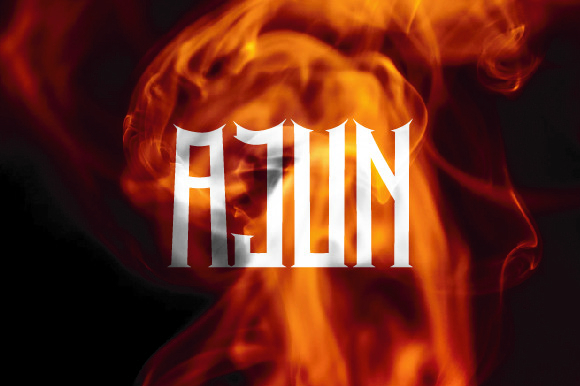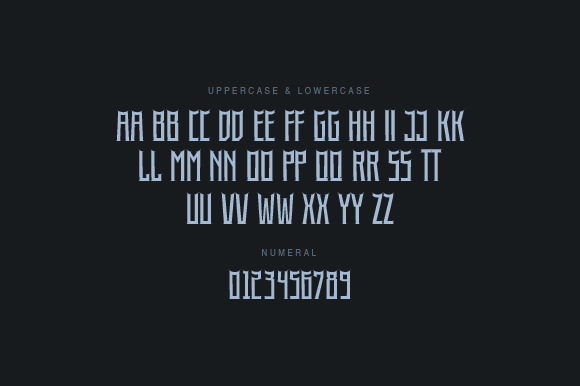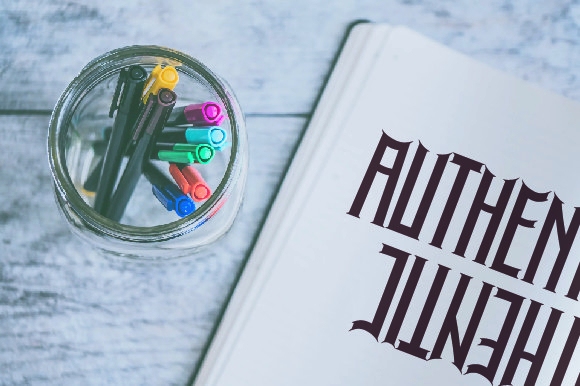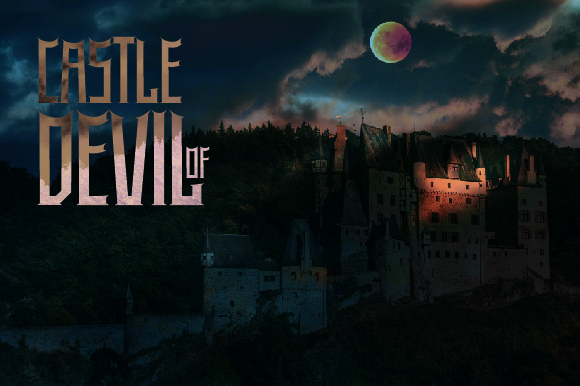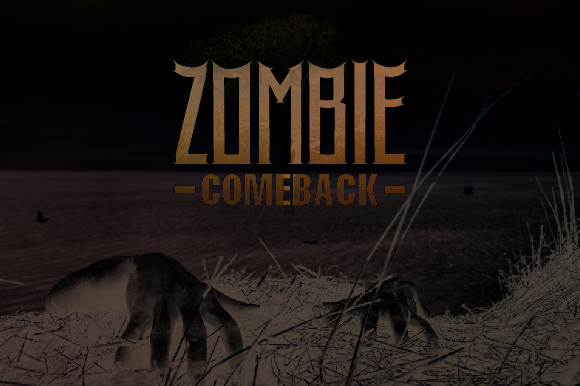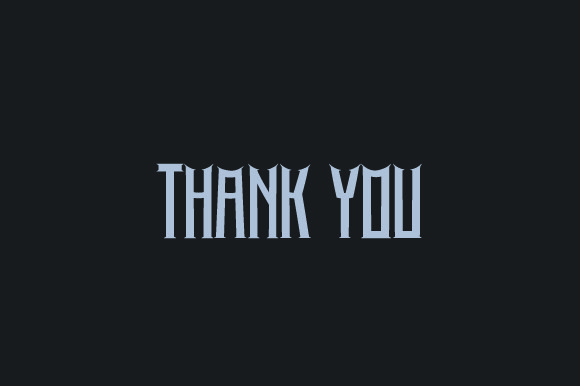
Ajun Font
About Ajun Font
Ajun is a cool and modern-looking blackletter font. It looks mysterious and somewhat vintage, and it is the perfect choice for projects that need strong, solemn typography!